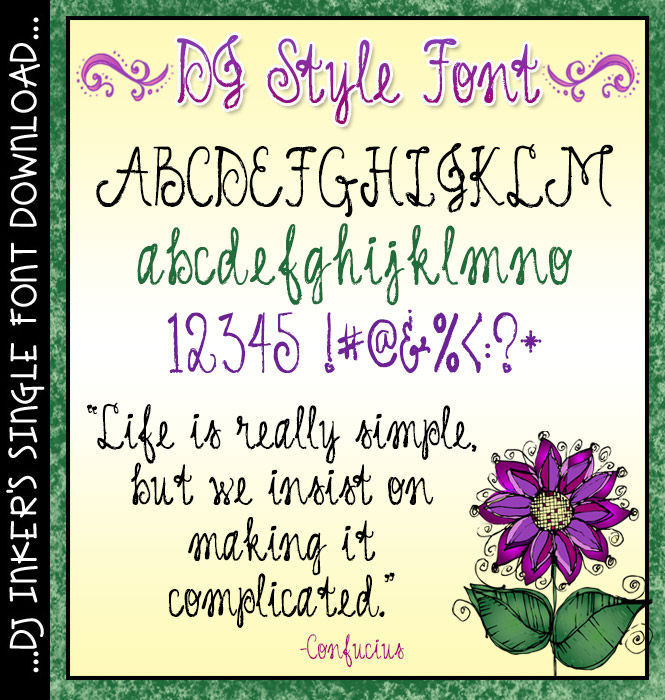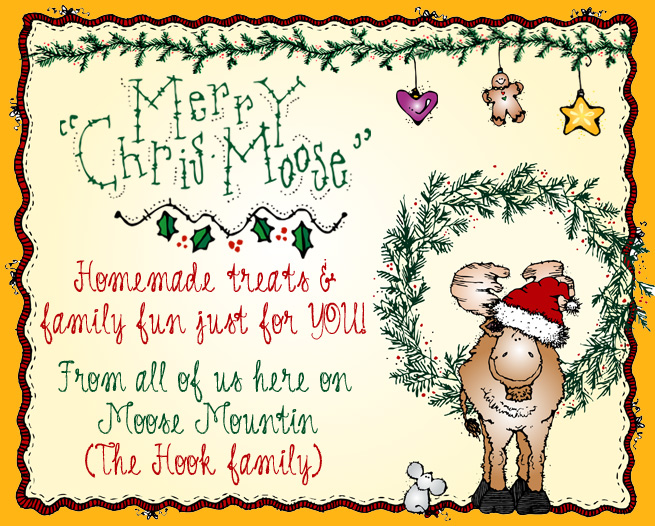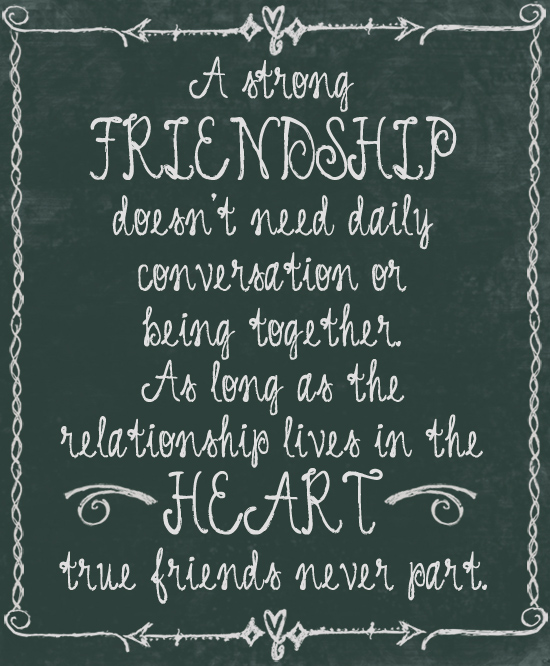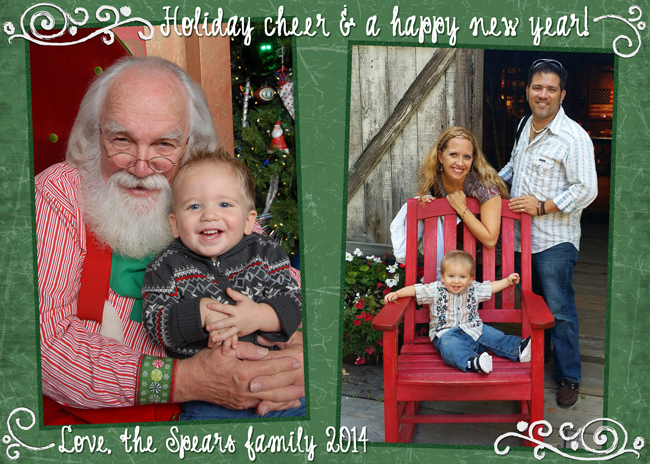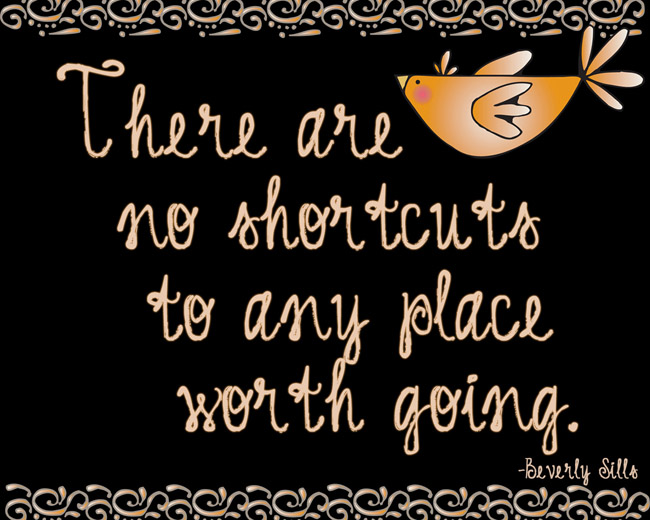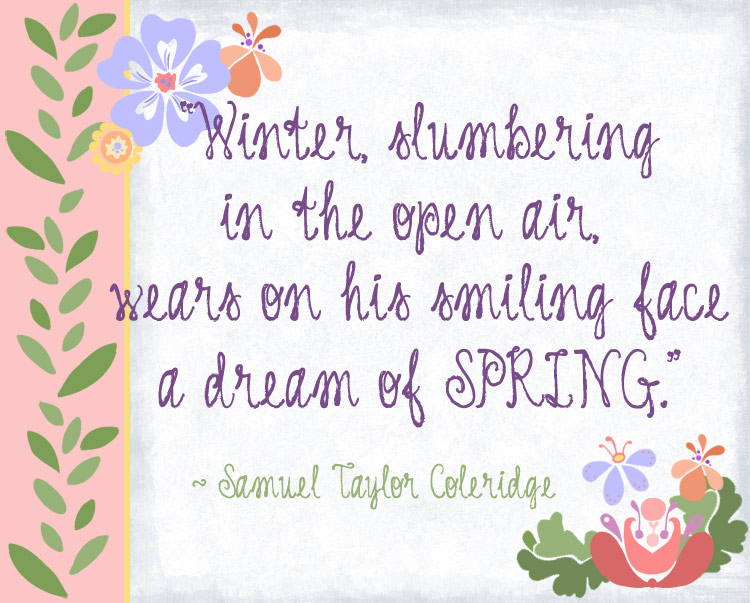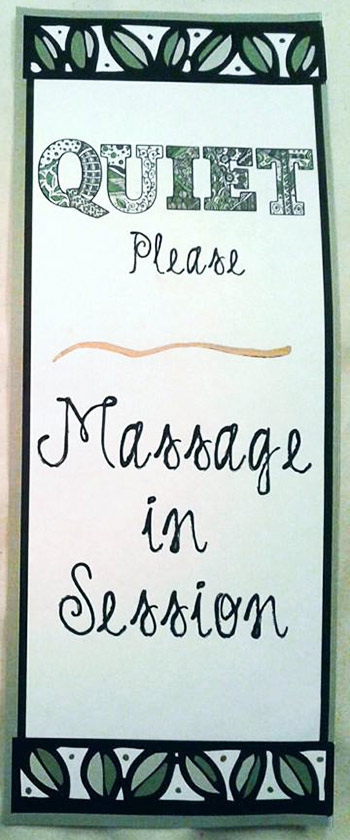
DJ Style Font Download
Looking for a little 'DJ Style' to add that special something to
your projects? Well this fun cursive font is sure to give you a stylish
edge. Try it for journaling, special occasions, love letters, notes &
more!